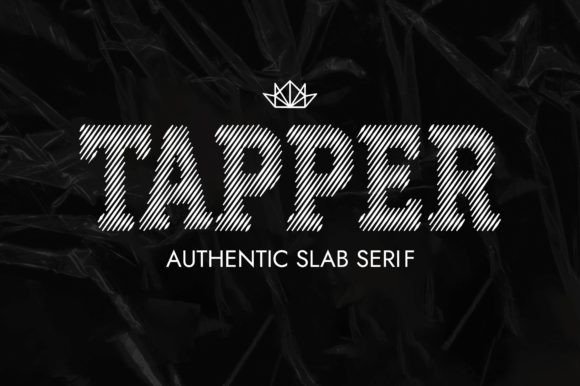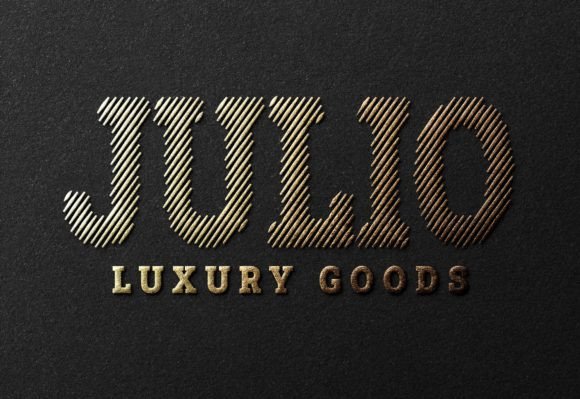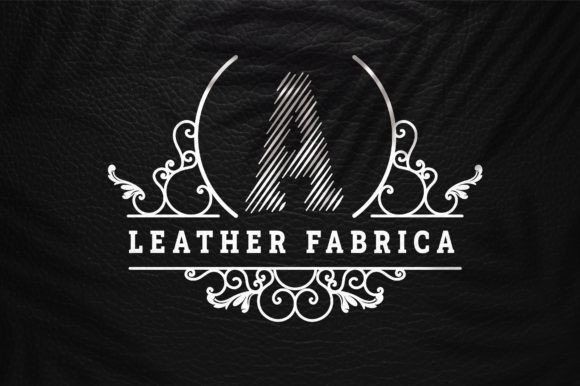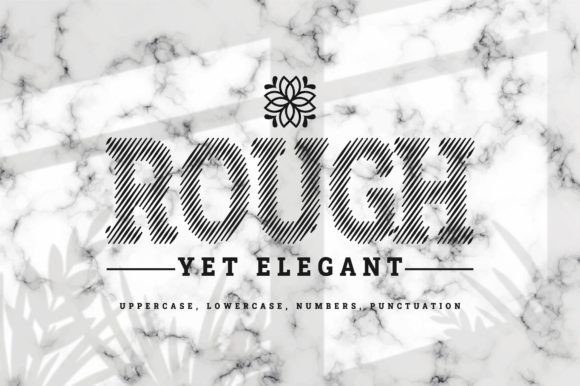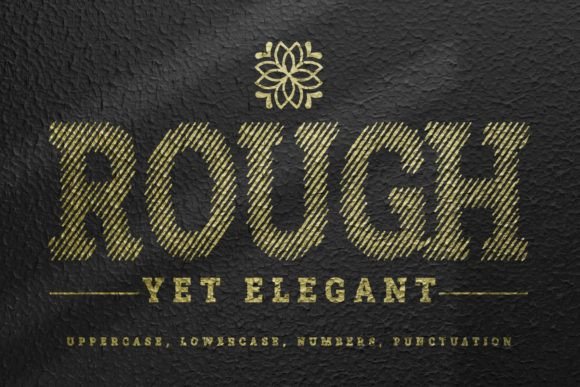
Tapper Font
Tapper: A Luxurious Slab Serif with Rough Tapered Lines
Tapper is a slab serif typeface designed to give rough tapered lines yet a luxurious look to your creations. It’s the perfect choice for elegant logo designs, big headings, titles, or anything that needs an equally elegant and rough touch.
Key Features of Tapper
• Slab Serif Design: Features distinctive serifs that add character and strength.
• Rough Tapered Lines: Brings a unique texture and visual interest to designs.
• Luxurious Appearance: Combines elegance with a touch of ruggedness.
• Versatile Application: Ideal for both large-scale and detailed design projects.
Ideal Uses for Tapper
Tapper’s unique characteristics make it particularly well-suited for:
When incorporating Tapper into your designs, consider these tips:
• Use for large-scale text to showcase its rough tapered lines.
• Experiment with different sizes to highlight the font’s luxurious features.
• Utilize its unique blend of elegance and roughness to create distinctive designs.
Tapper is an excellent choice for designers looking to add a luxurious yet textured slab serif font to their typographic toolkit. Its ability to combine elegance with a rough edge makes it stand out in the world of typography. Whether you’re working on high-end branding, creating impactful headlines, or developing content that requires a touch of sophistication with a twist, Tapper offers the perfect blend of style and character.
Furthermore, Tapper’s unique design allows it to shine in various contexts. From premium product packaging to editorial layouts that need a distinctive touch, this font can elevate your projects with its luxurious yet approachable style. Its rough tapered lines work particularly well in designs that aim to convey both refinement and authenticity.
In conclusion, Tapper is a font that truly captures the essence of modern luxury with a handcrafted feel. Its ability to work well in both large-scale applications and more intricate designs showcases its versatility. For those looking to add a touch of elegant roughness to their work, Tapper can enhance themed creations with its distinctive style. It’s the perfect choice for designers seeking to make a sophisticated yet bold impact across a wide range of creative projects.